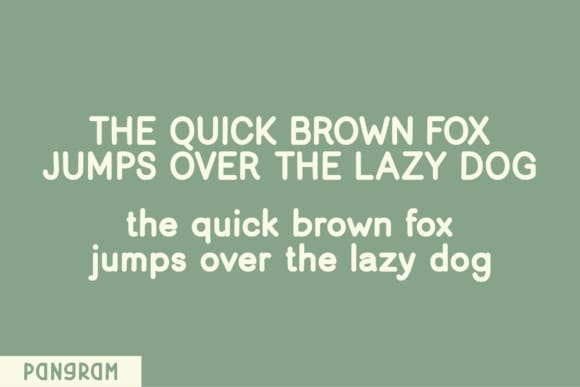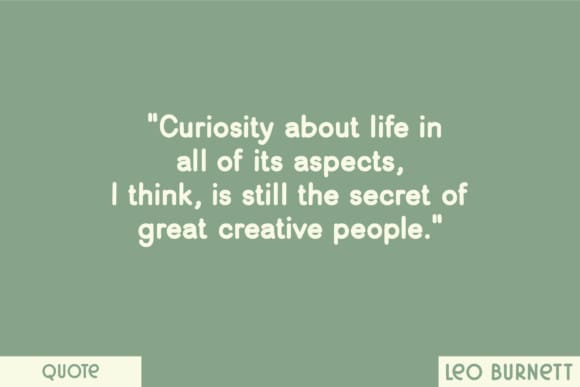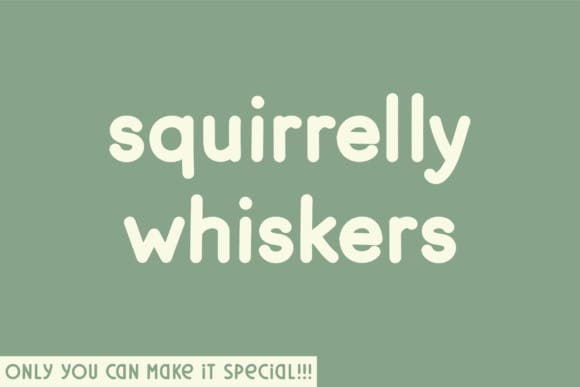
Squirrelly Whiskers Font
Squirrelly Whiskers feels playfully nostalgic and delivers an incredible vintage aesthetic. Use this serif font to add that special retro touch to any design idea you can think of!